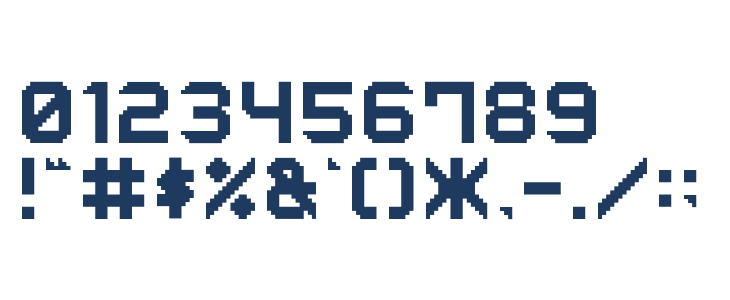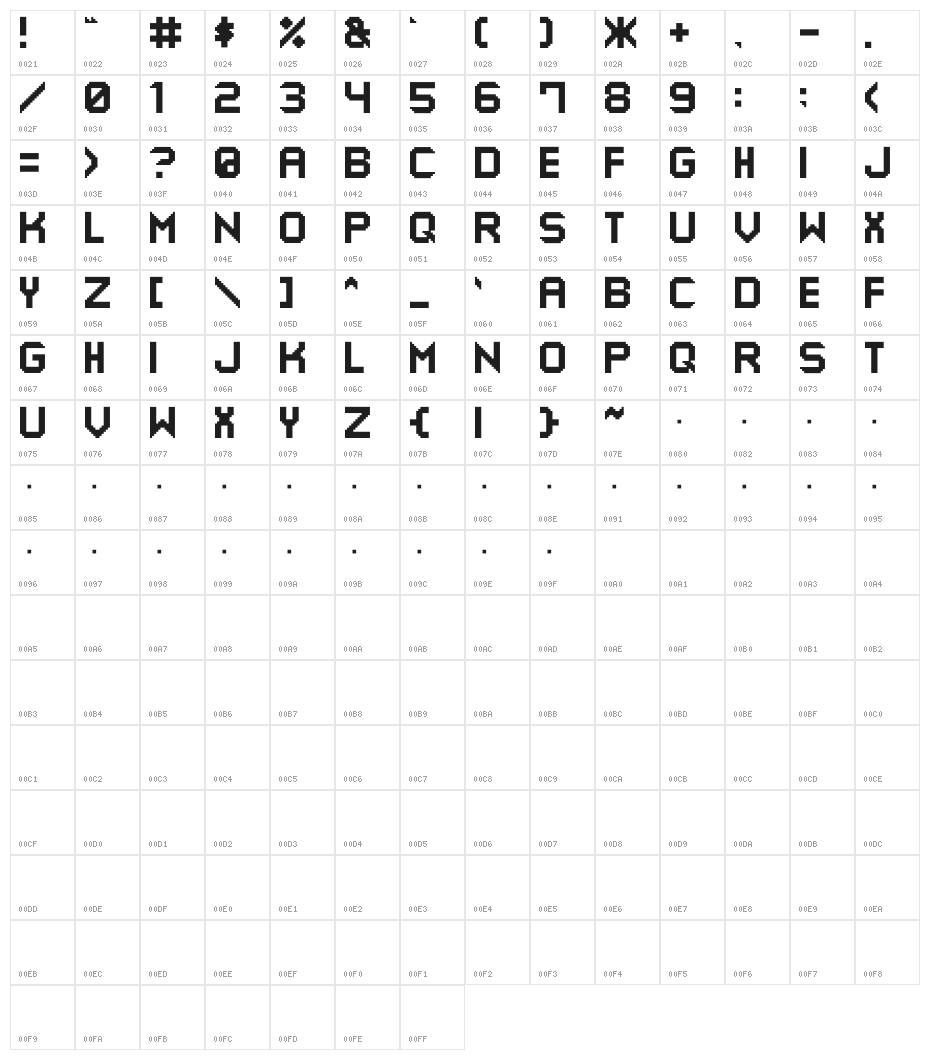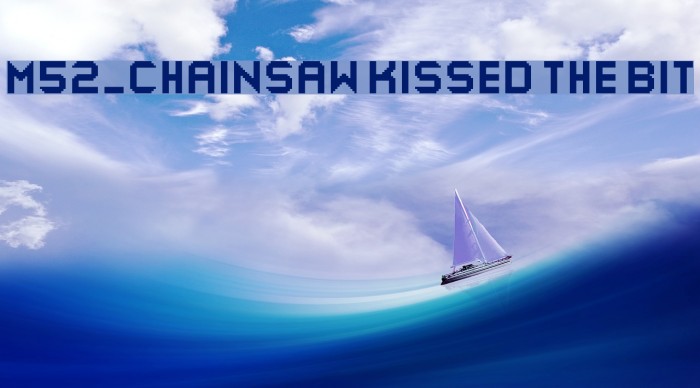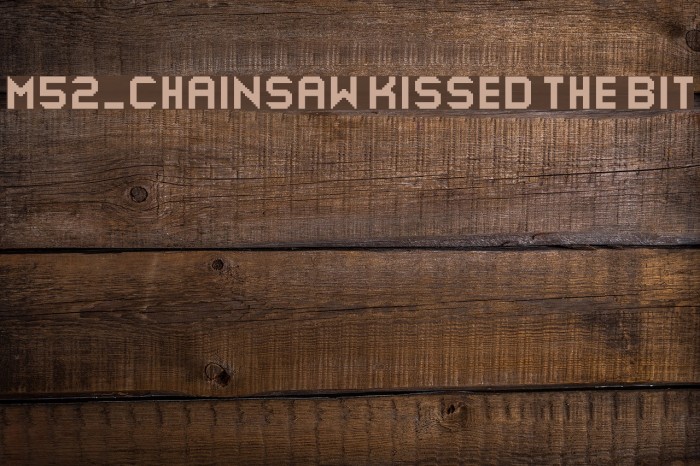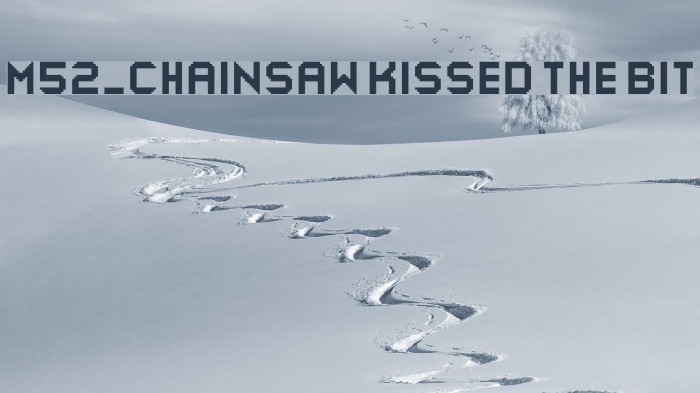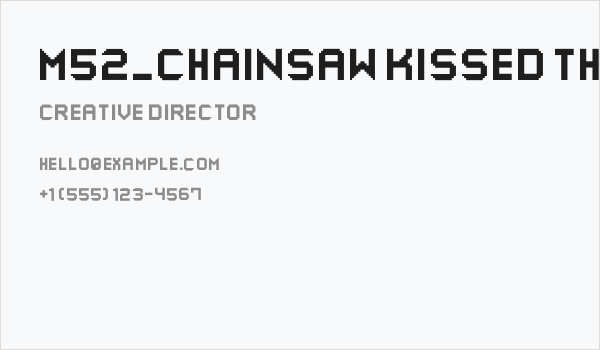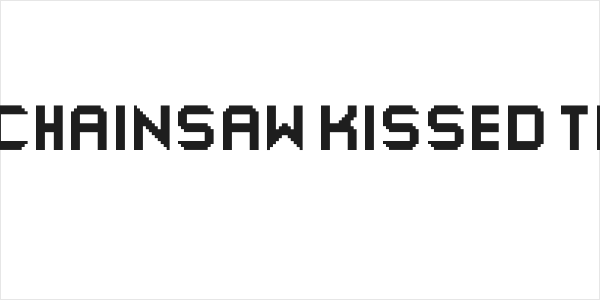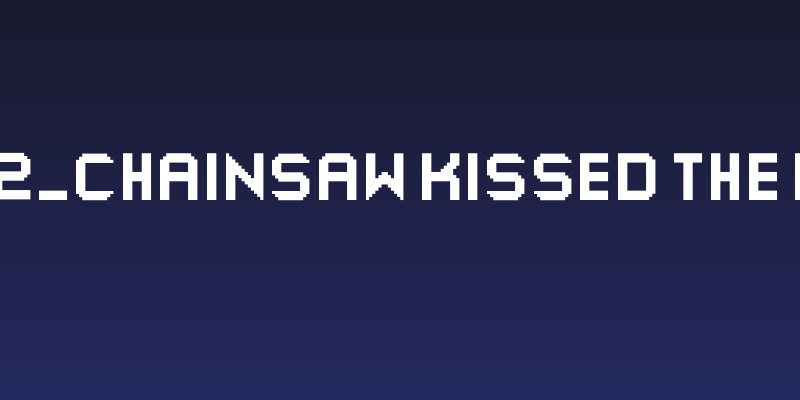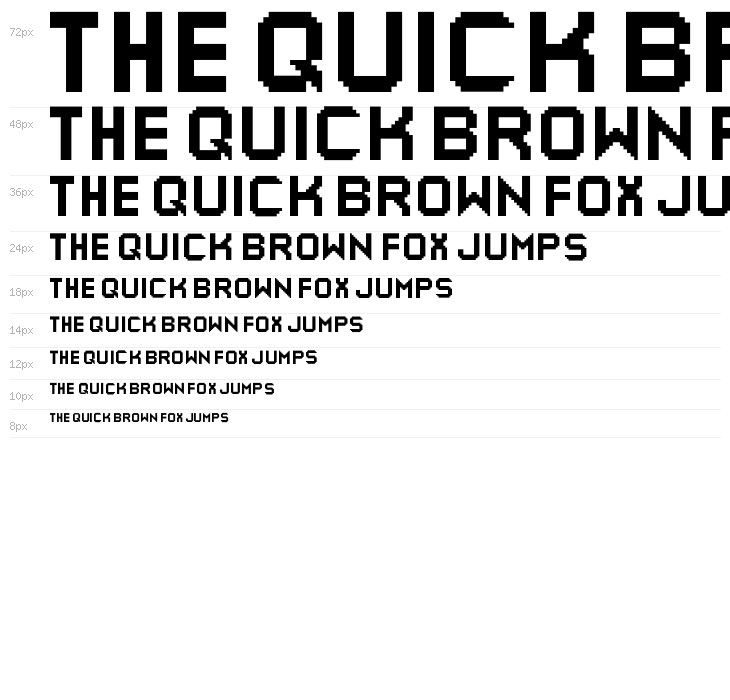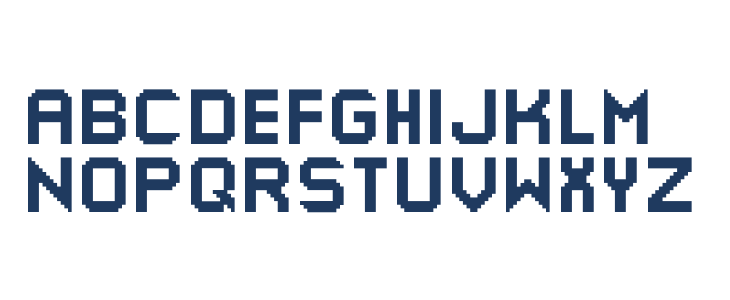
M52_CHAINSAW KISSED THE BIT Font
M52_CHAINSAW KISSED THE BIT Description
This font features a bold, geometric design with a pixelated aesthetic reminiscent of early digital displays and retro video games. The characters are constructed with sharp, angular edges and a uniform stroke width, giving it a blocky and robust appearance. The uppercase and lowercase letters maintain a consistent height, contributing to a monospaced feel, although it is not strictly monospaced. The numerals and special characters follow the same design principles, ensuring a cohesive look across all glyphs. The font's style is both modern and nostalgic, making it suitable for projects that aim to evoke a sense of digital nostalgia or a tech-inspired theme.
| Overall Style | Retro, Digital |
| Proposed Projects | Ideal for video game design, tech-themed posters, digital art projects, and retro-inspired branding. |